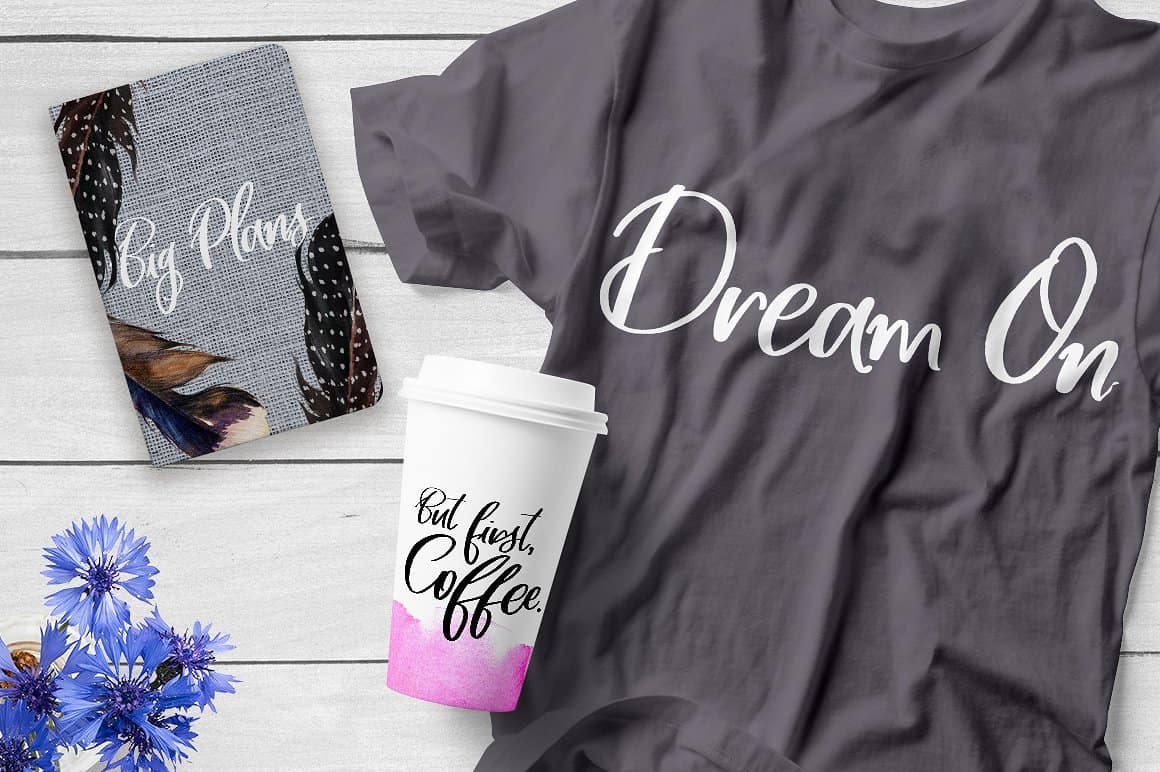
La Parisienne Brush Font
La Parisienne Brush Font is known for its script typeface. This is known as the unique text generator. This font is a well-known preference for t-shirt designs, posters, and each lovely shape of layout challenges.
Style of La Parisienne Brush Font Free